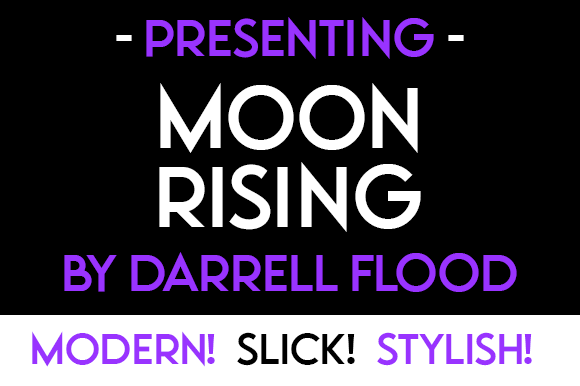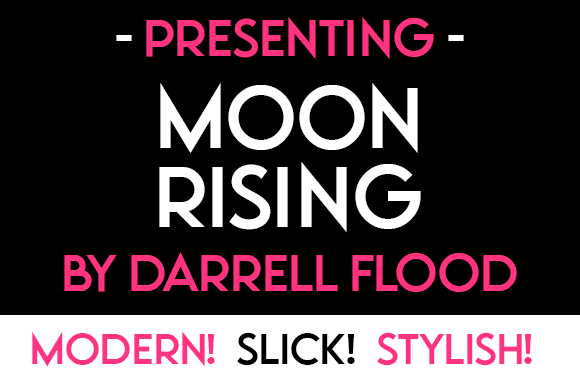
Moon Rising Font: A Modern Sans Serif for Tech & Sci-Fi Designs
About the Moon Rising Font
We are excited to introduce Moon Rising Font, a must-have typeface for any serious designer. Moon Rising is an authentic, simple and modern sans serif font. It is perfect for futuristic creations, science related designs and tech presentations!
Moon Rising’s clean lines and geometric structure make it ideal for headlines, logos, and short, impactful text on posters or website banners. It excels in conveying a sense of modern sophistication and technological advancement, lending itself well to branding for tech startups, futuristic products, or science-related projects. However, its minimalist design isn’t suited for extended body text or user interfaces where readability over long passages is paramount.
Pairing Moon Rising with a warmer serif like Playfair Display for supporting text creates an elegant contrast, balancing the font’s cool modernity with a touch of classic sophistication. For a more playful and contemporary feel, consider pairing it with a rounded sans-serif such as Montserrat. This combination retains a modern aesthetic while adding visual warmth and approachability.
The overall personality of Moon Rising is bold, clean, and undeniably modern, conveying a sense of confidence and innovation. It projects a sophisticated yet approachable feel, making it versatile for a range of projects that require a contemporary and impactful visual identity.
Moon Rising Font Usage Examples
Moon Rising Font Example